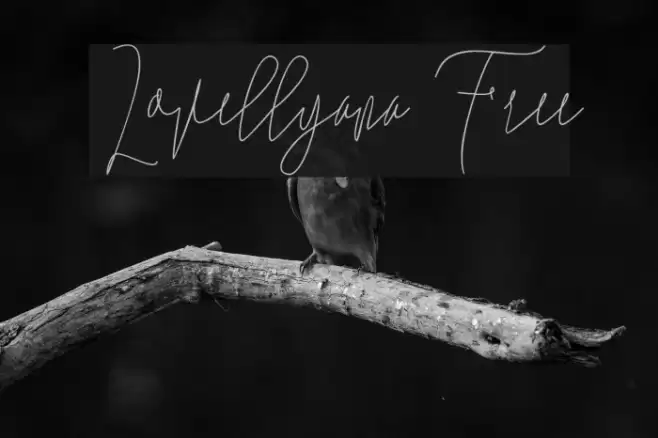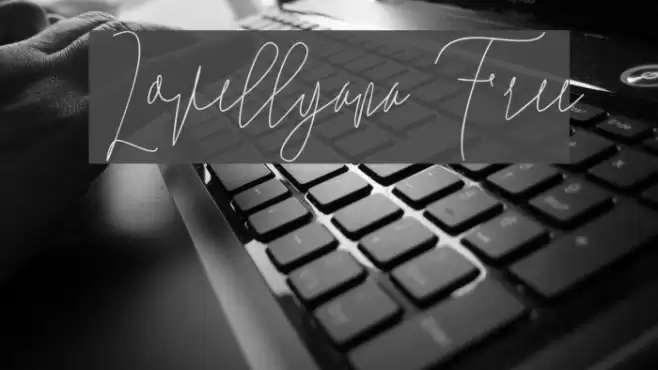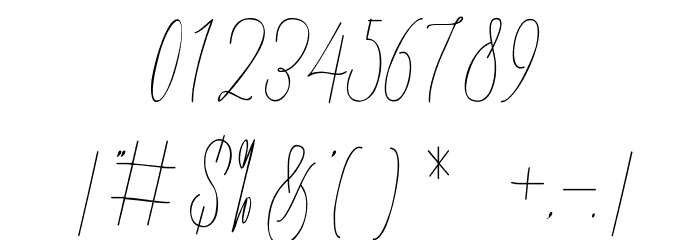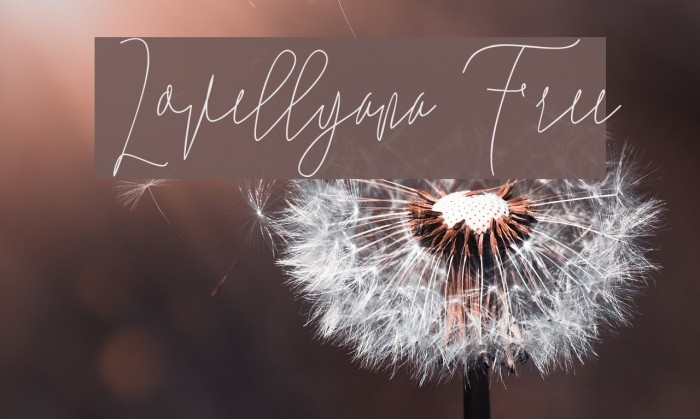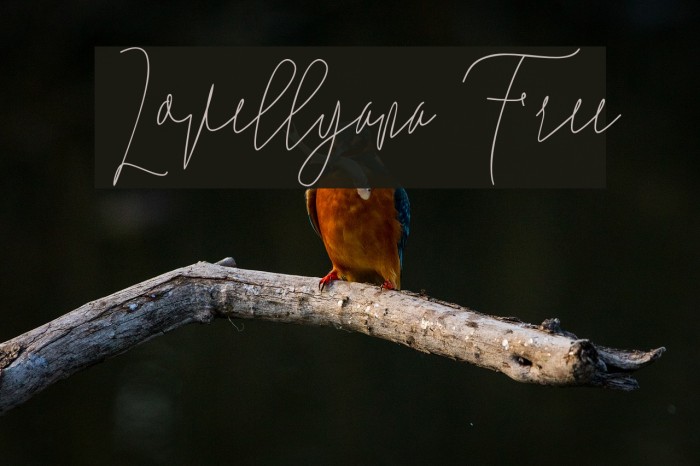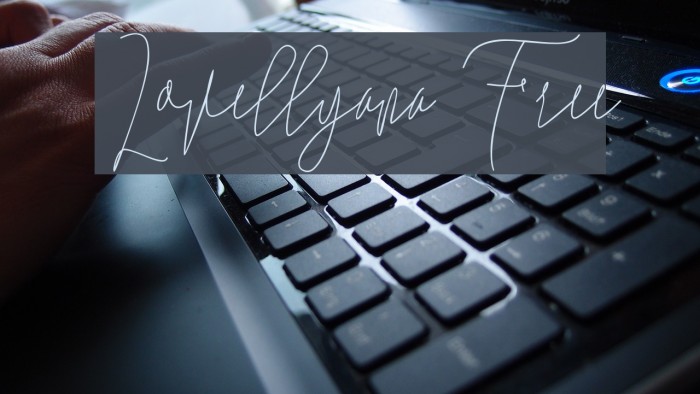
Lovellyana Free Font
Lovellyana Free Description
This font exudes elegance and sophistication with its flowing, cursive style. The letters are delicately crafted with a graceful, handwritten appearance, featuring smooth curves and a consistent slant that adds a sense of motion. The uppercase letters are tall and slender, while the lowercase letters maintain a harmonious balance, enhancing readability. The numerals and special characters are designed to complement the overall aesthetic, making them suitable for a variety of design applications. The thin strokes and subtle variations in line thickness contribute to a refined and airy look, perfect for projects that require a touch of elegance.
An elegant, cursive font with a graceful, handwritten style from Uncategorized fonts.
- Proposed Projects: Ideal for wedding invitations, greeting cards, elegant branding, and personal stationery.
- Weight: Light
- Overall Style: Elegant, Handwritten
- Use Case: Invitations, Branding, Stationery